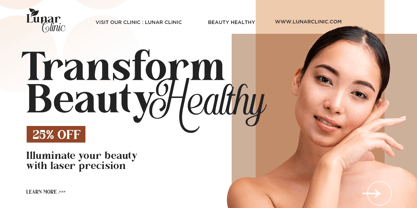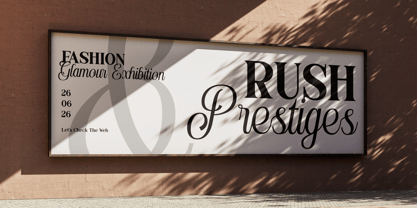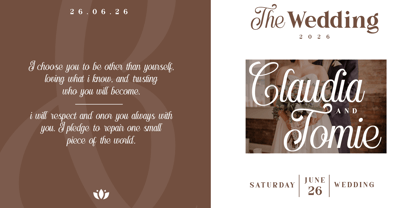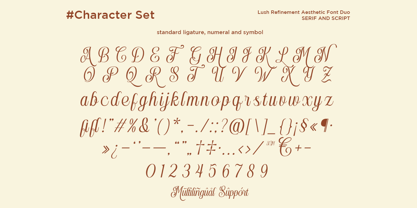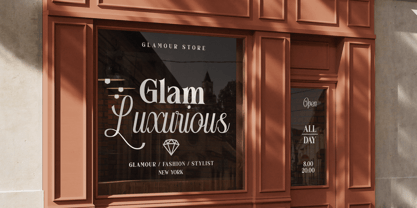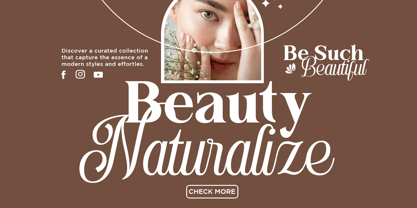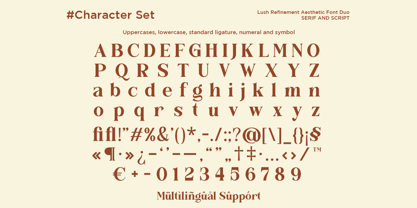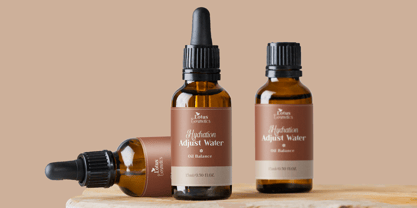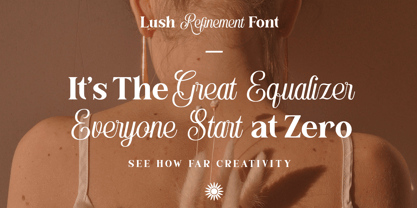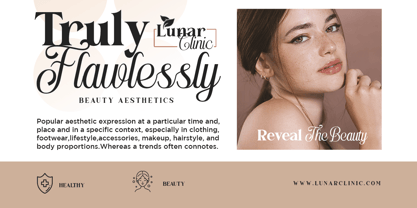
Lush Refinement
by Say Studio
The Lush Refinement Font Family was designed by Mussyayin and published by Say Studio. Lush Refinement contains 2 styles and family package options. More about this family
Lush Refinement is an elegant and stylish font duo that blends a graceful serif with a flowing script. Based on the visual presentation, the serif brings a clean, modern, and luxurious feel, while the script adds softness, femininity, and refined curves. The contrast between structured letterforms and smooth handwritten strokes creates a balanced and sophisticated look.
This font is ideal for fashion branding, beauty products, wedding designs, editorial layouts, logos, invitations, and premium packaging. Its smooth curves, high readability, and timeless elegance make it perfect for designs that aim to feel luxurious, romantic, and modern while still maintaining a professional appearance.
Designers: Mussyayin
Foundry: Say Studio